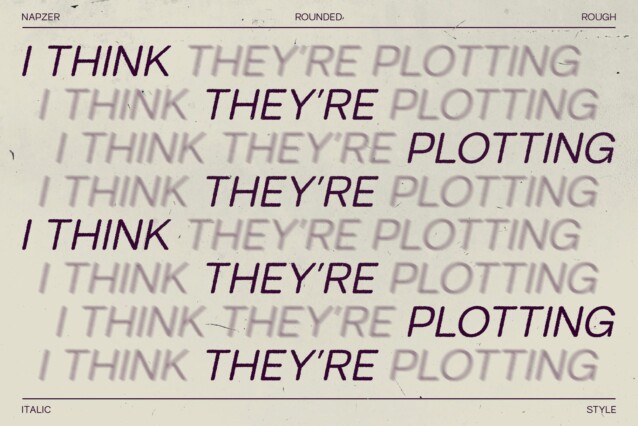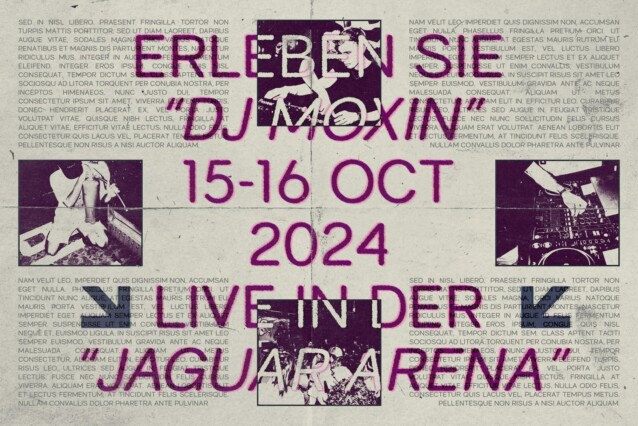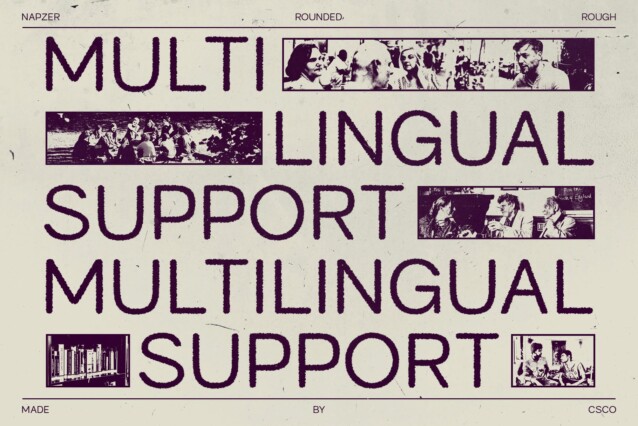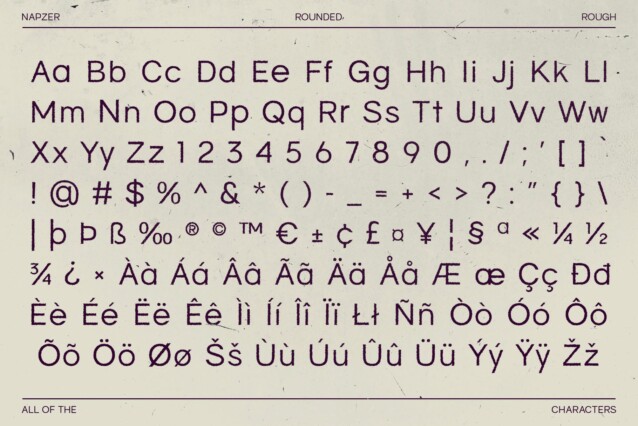
Napzer Rounded Rough Font
Napzer Rounded Rough Font is a modern sans serif font that fuses geometric precision with rounded forms and a distinct rough texture. This unique combination offers a contemporary look with a bold, handcrafted edge, making it the ideal choice for projects that require both sleek design and a touch of rugged charm.